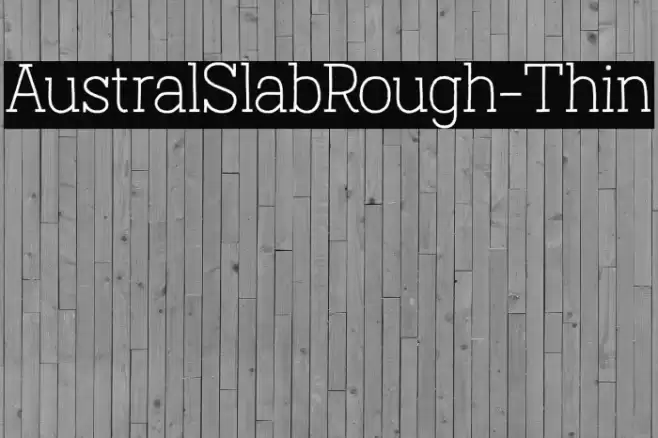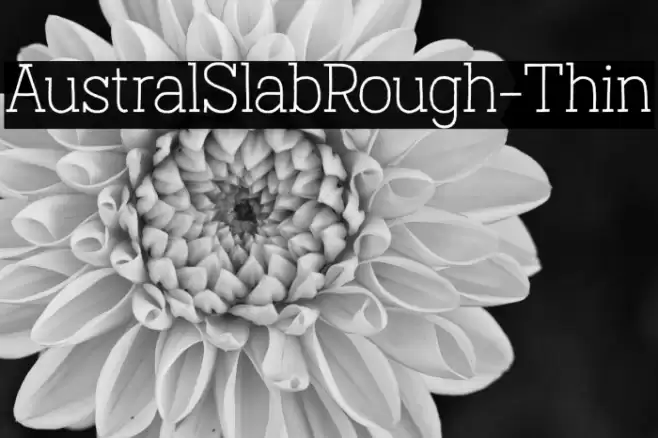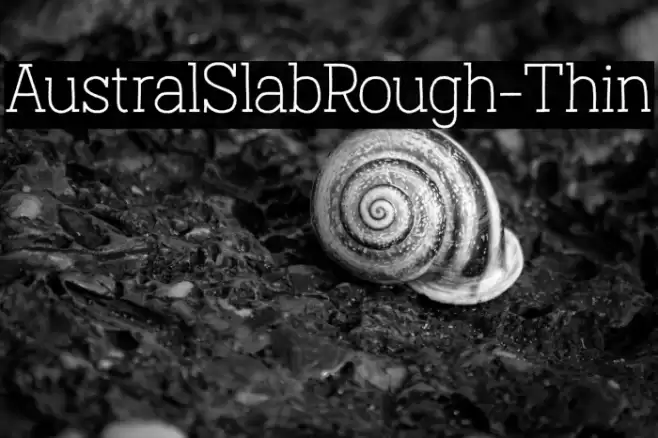
AustralSlabRough-Thin Font
AustralSlabRough-Thin Description
This font features a distinct slab serif style with a rough, hand-drawn appearance. The thin strokes give it a delicate and refined look, while the uneven edges add a touch of rustic charm. The uppercase and lowercase letters maintain a consistent height, providing a balanced and harmonious feel. The numerals are clear and legible, making them suitable for various applications. Special characters are well-defined, enhancing the font's versatility. The overall design is both modern and vintage, making it adaptable for a range of creative projects.
A thin, rough slab serif font with a hand-drawn, rustic charm from Uncategorized fonts.
- Proposed Projects: Ideal for branding, packaging, editorial design, and creative projects that require a touch of elegance and authenticity.
- Overall Style: Vintage
- Use Case: Headlines, Logos, Editorial design